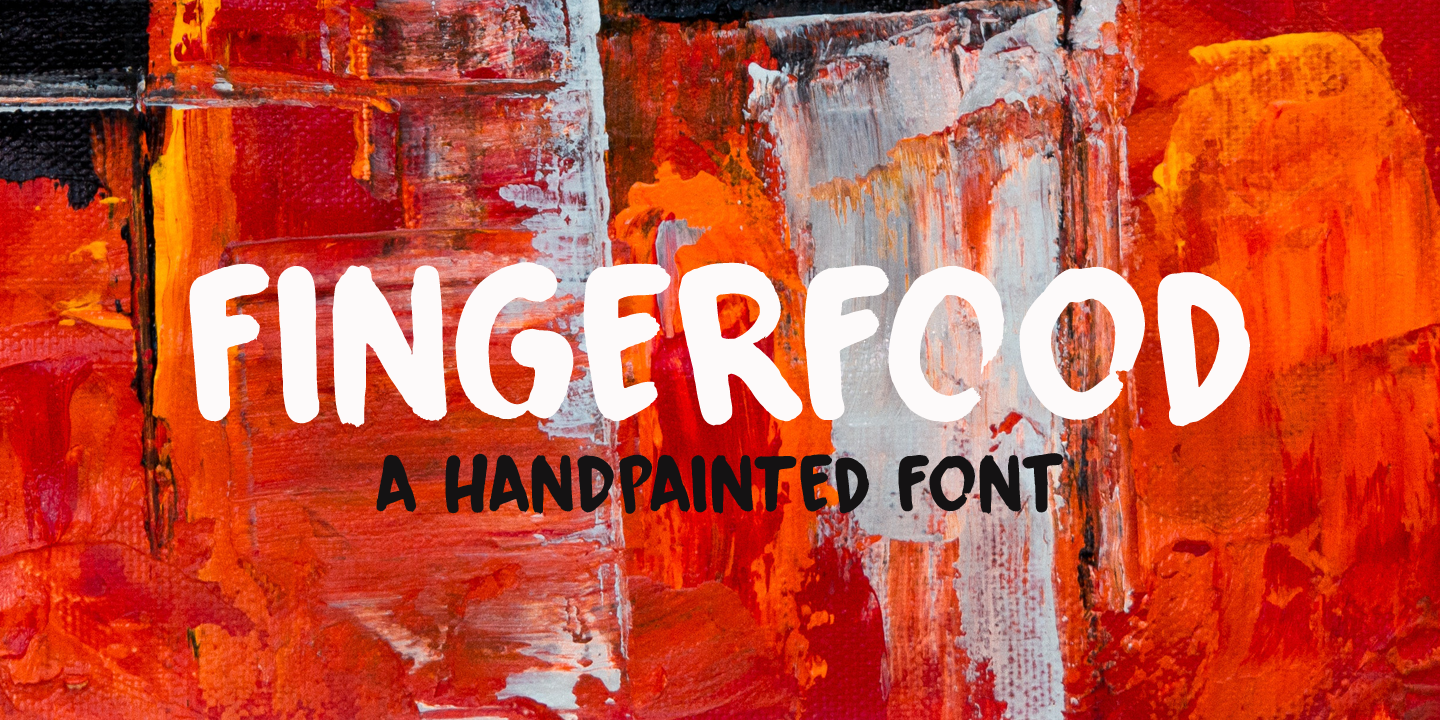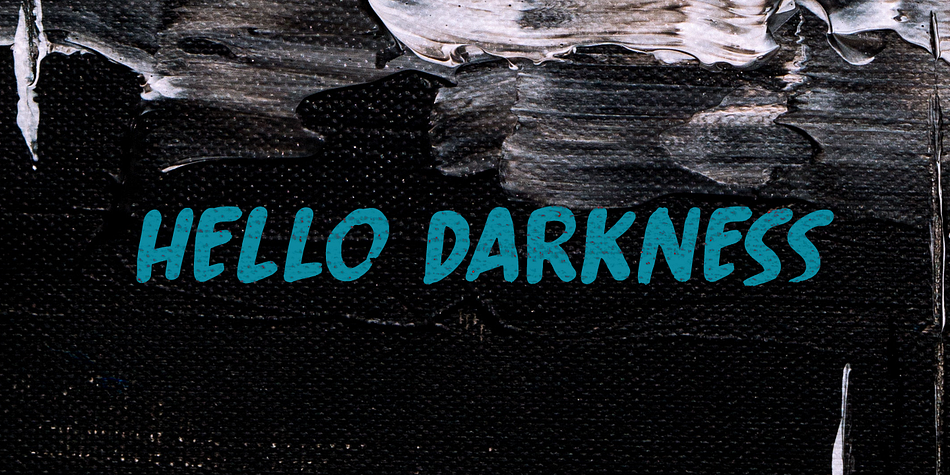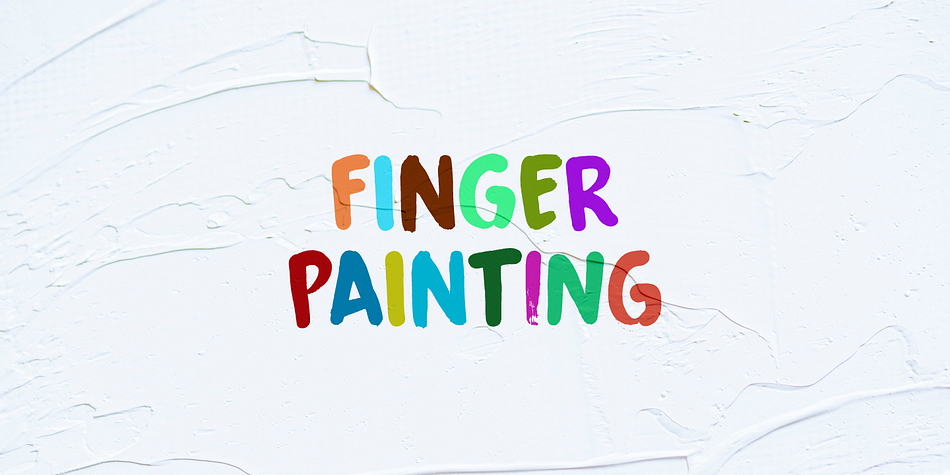
Designed by David Kerkhoff, Fingerfood is a hand display font family. This typeface has two styles and was published by Hanoded.
I made this font using my index finger and Chinese ink. I thought the ink would come off easily, but I can tell you: it doesn’t. I have been walking around with a black stained finger for a week now and I do get strange looks from people every so often…
Fingerfood, of course, is hand made. It is a rather playful font - all caps, but lower and upper case differ and like to mingle. Comes with a full diacritics palette.